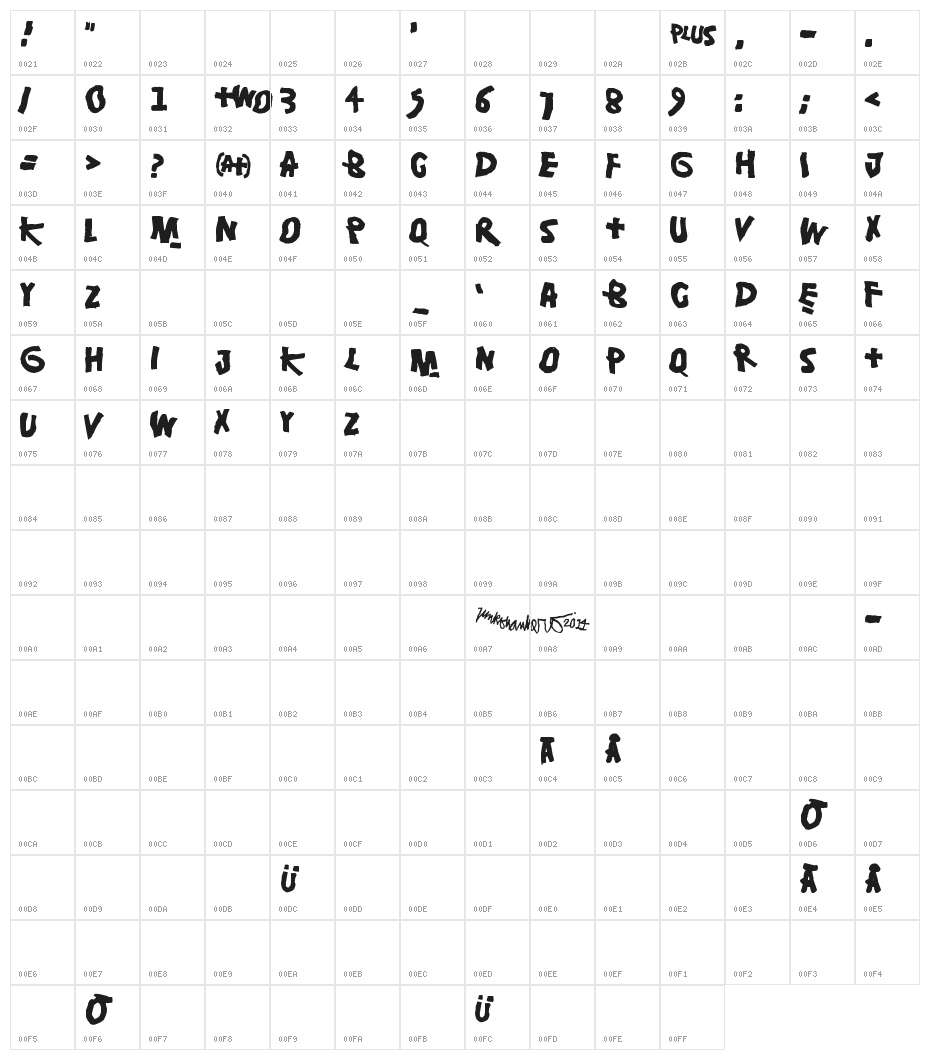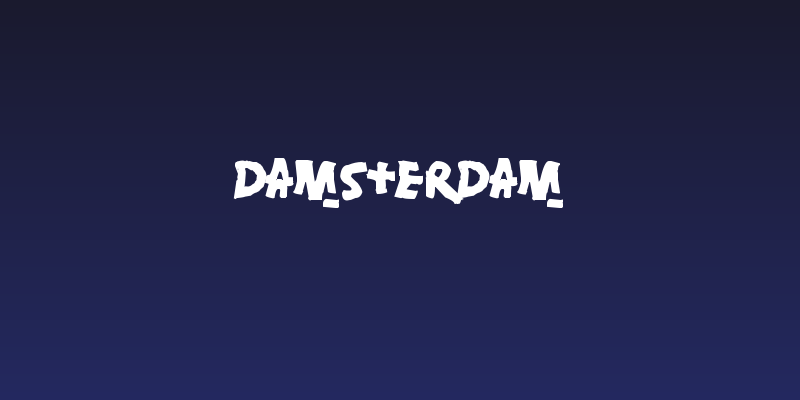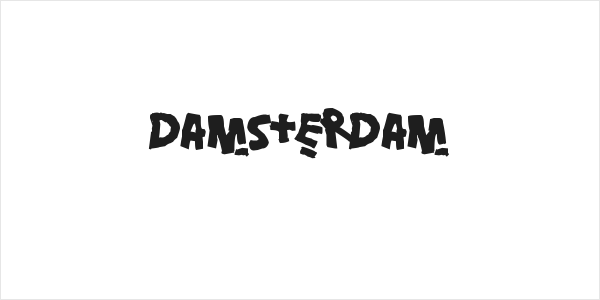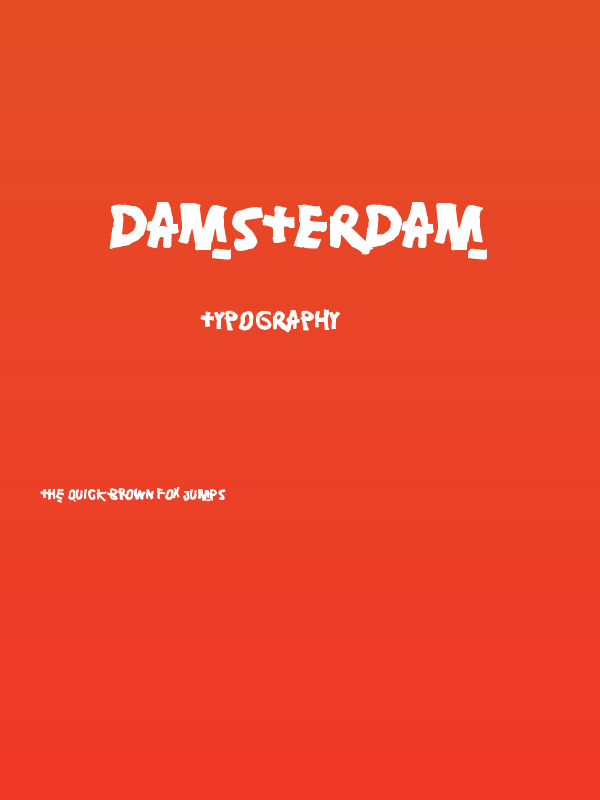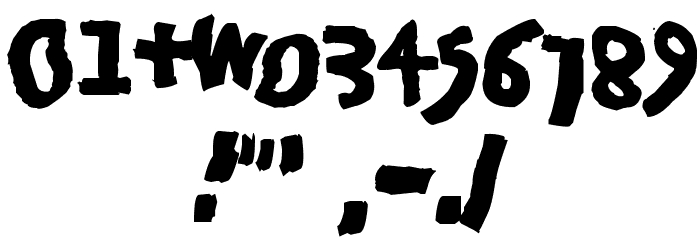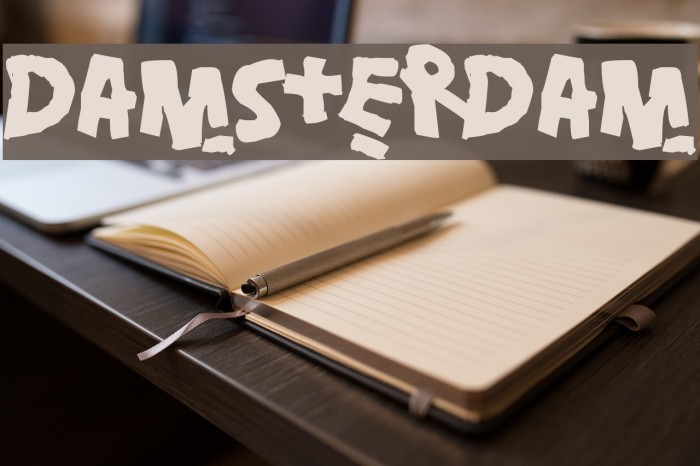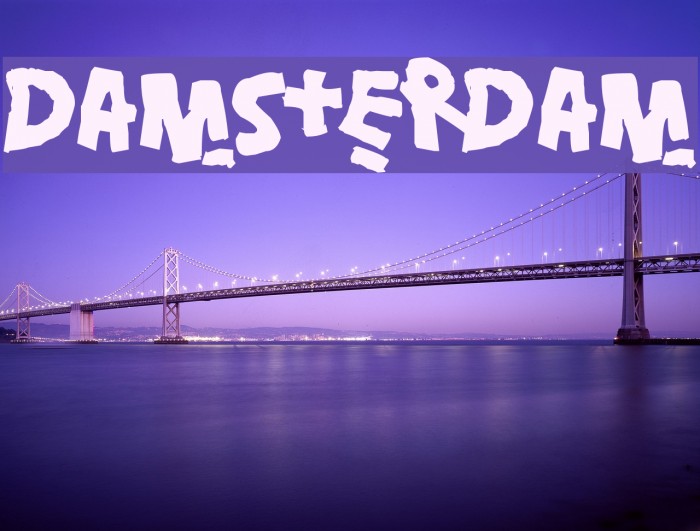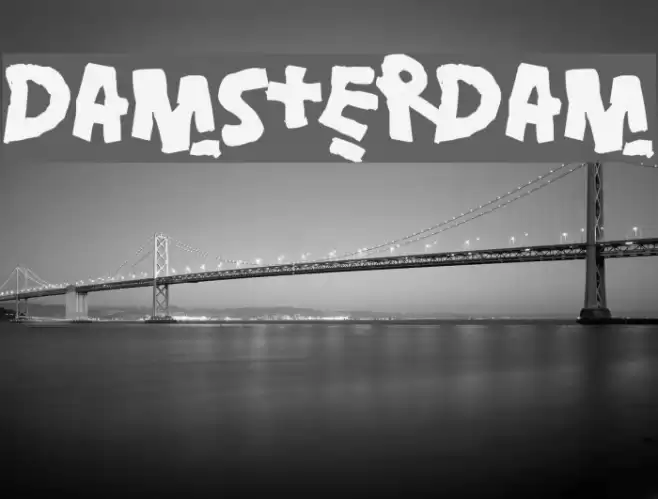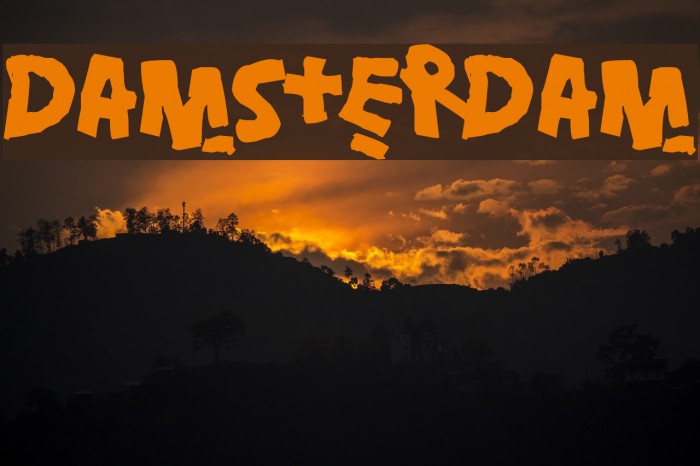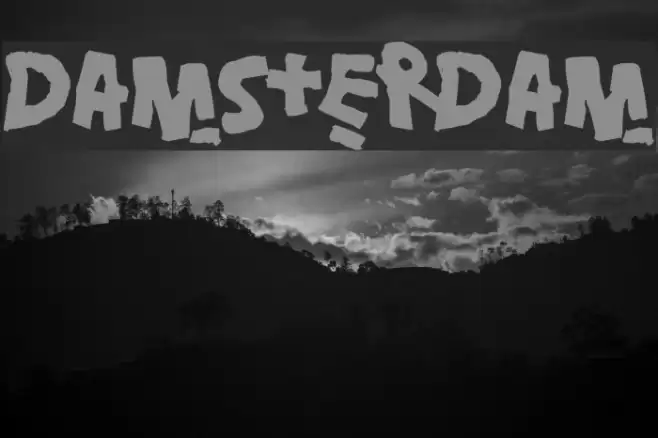
Damsterdam Font
✎ Distorted Eroded
| Style général | Modern, Artistic |
| Projets proposés | Ideal for posters, album covers, street art-inspired designs, and branding that seeks a bold, artistic touch. |